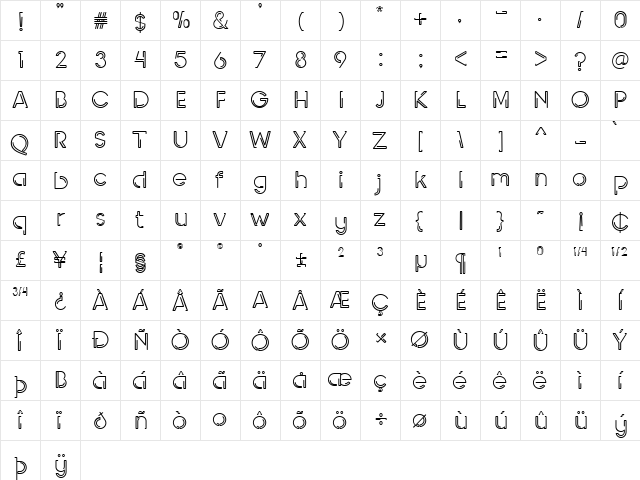
INDEPENDENT round Regular
Design Context for INDEPENDENT round Typeface
INDEPENDENT round softens its letterforms with rounded terminals, giving it an approachable, friendly quality that works well in consumer-facing and digital contexts.
A natural fit for tech startups, health and wellness brands, children's products, and friendly consumer apps.
Font Pairing: Pairs well with a rounded or humanist sans for body copy, maintaining the friendly tone without relying on INDEPENDENT round to carry extended reading.
Pro Tip: Pair INDEPENDENT round with a geometric sans for a balanced system — the rounded softness works as a warm counterpoint to harder-edged companions.